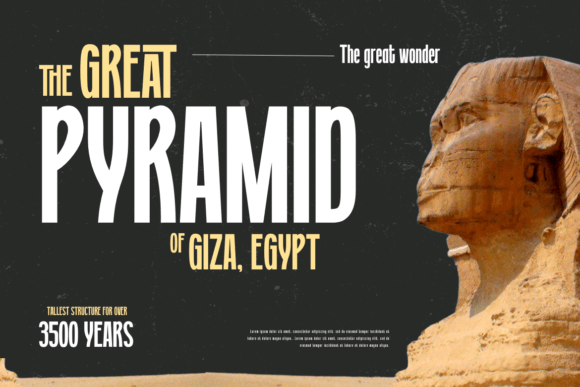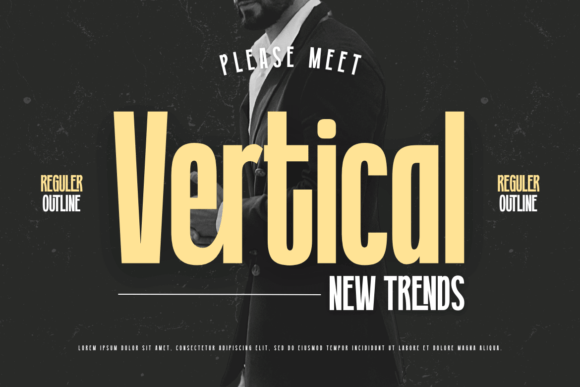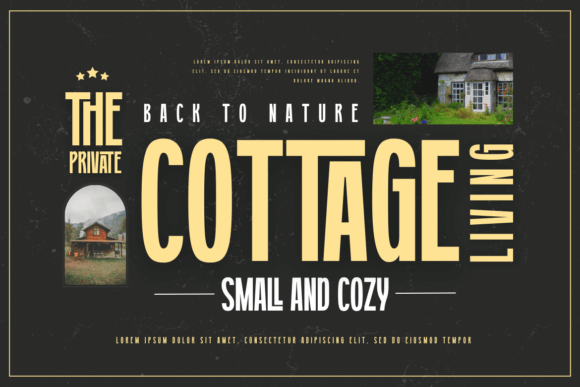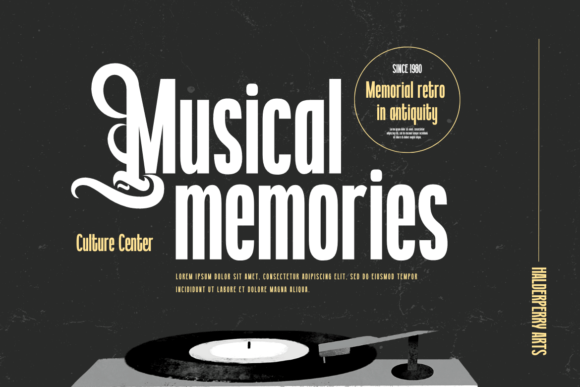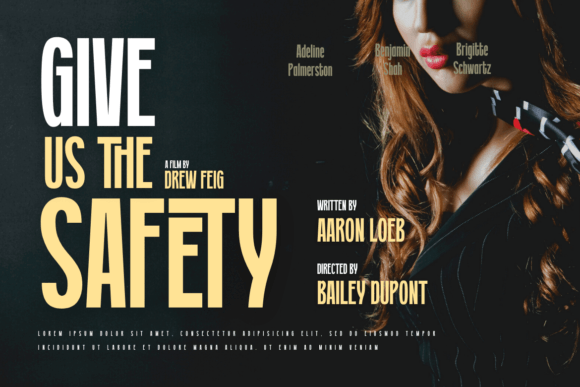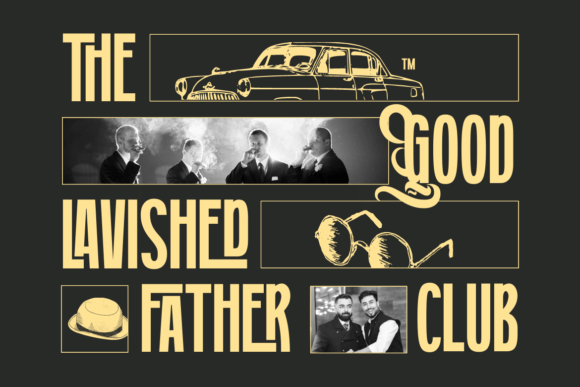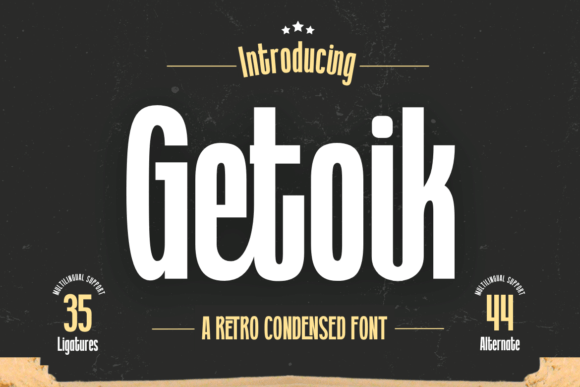
Introducing Getoik: The Retro Condensed Font to Elevate Your Designs
Are you tired of using the same old fonts in your designs? Look no further! Getoik, the retro condensed font, is here to take your designs to the next level. With its clean and smooth edges, this font is perfect for any design project, whether you’re a seasoned designer or a crafty DIY enthusiast.
The Perfect Blend of Style and Versatility
Getoik is more than just a font – it’s a design statement. Its retro vibe is reminiscent of the classic fonts of the past, but with a modern twist that makes it perfect for contemporary designs. The condensed style of Getoik makes it ideal for headlines, titles, and short paragraphs of text, while its clean and smooth edges ensure that your designs look crisp and professional.
Designed with Attention to Detail
One of the standout features of Getoik is its attention to detail. The font has been carefully crafted to ensure that every letter, every curve, and every line is perfect. The result is a font that looks amazing in any size or context. Whether you’re using Getoik for a logo, a poster, or a website, you can be sure that it will look great.
Getoik is PUA (Private Use Area) encoded, which means that you can access all of the amazing glyphs and ligatures with ease. This feature makes it easy to add a touch of personality to your designs, and to create unique and eye-catching text. With Getoik, you can easily access a range of alternative characters, ligatures, and other special glyphs that will take your designs to the next level.
Getoik is a must-have for any designer or crafty DIY enthusiast looking to elevate their work to the next level. Whether you’re designing a logo, a website, or a craft project, Getoik is the perfect choice. The font is versatile and easy to use, making it perfect for a wide range of design projects. Plus, with its PUA encoding, you can easily access all of the glyphs and ligatures you need to create amazing designs.
What You Can Use Getoik For
Getoik is perfect for a wide range of design projects, including:
• Logos and branding
• Posters and flyers
• Websites and blogs
• Craft projects, such as card making and scrapbooking
• Signs and banners
• Packaging and product design
Why Choose Getoik?
There are many fonts to choose from, but Getoik stands out from the crowd. Here are just a few reasons why:
• Unique and stylish design
• Clean and smooth edges
• PUA encoded for easy access to glyphs and ligatures
• Versatile and easy to use
• Perfect for a wide range of design projects